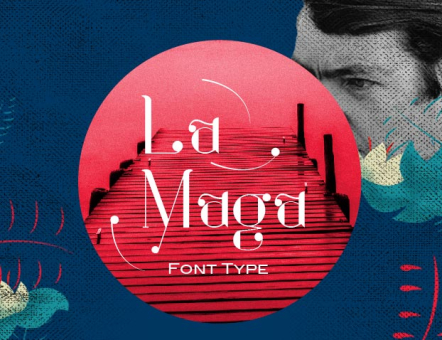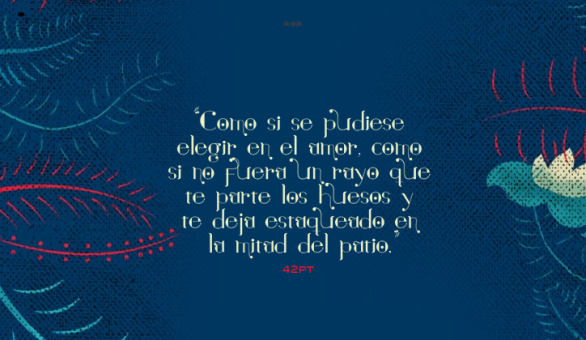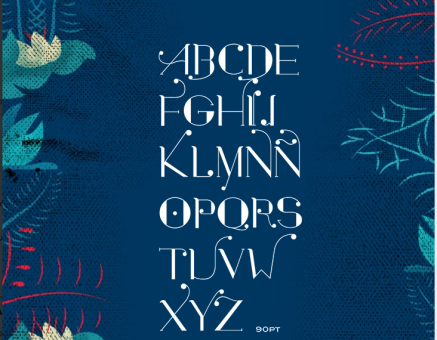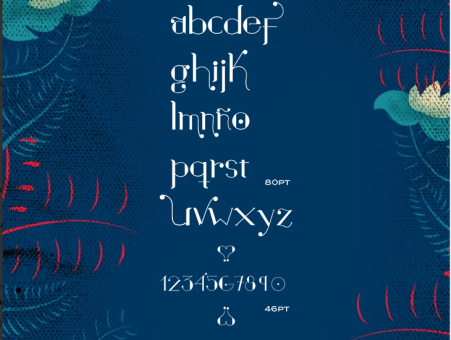
La Maga
La Maga Font Type is a decorative typeface and used for short texts. His base is in the Modern fonts with delicate organic curves to make reference to the nature.
It's great for titles and logos!
Designer: Marianela Grande